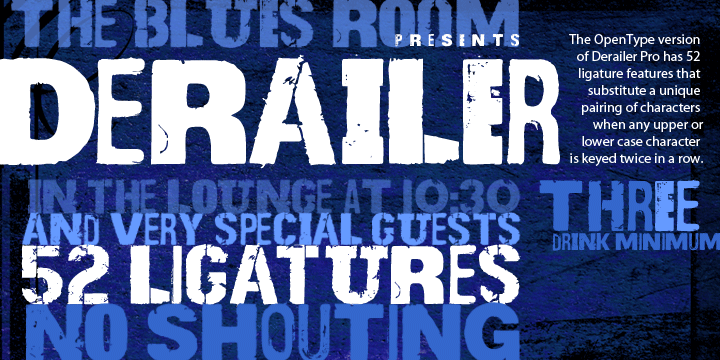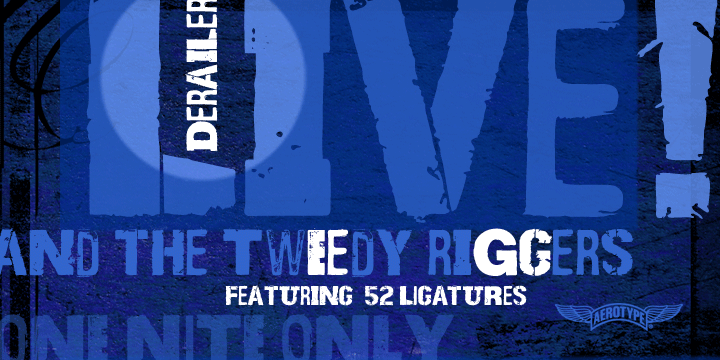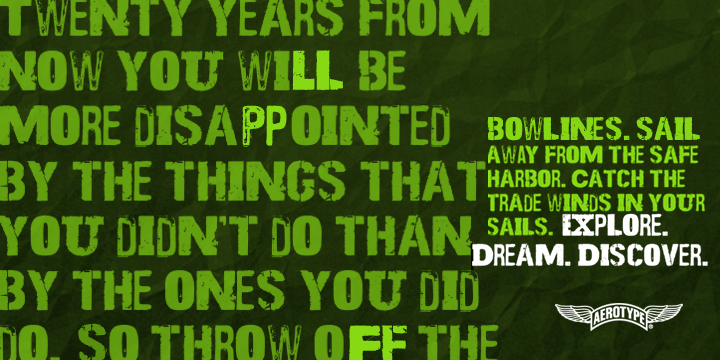
Derailer Pro is a grunge font published by Aerotype .
Derailer Pro’s eclectic character set is comprised mainly of disparate sans serif characters that claim to play well together. OpenType users benefit from 52 ligature features that automatically substitute a unique pairing of letters when any upper or lower case character is keyed twice in a row, as well as support for Eastern European Latin, Baltic, Greek and Turkish.